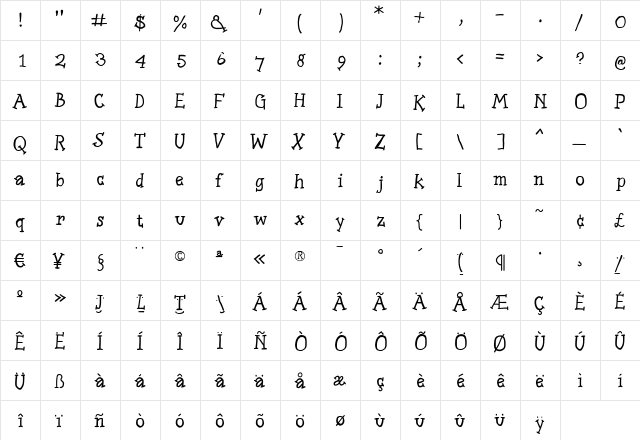
SlabSerifWritten Regular
Design Context for SlabSerifWritten Typeface
SlabSerifWritten features prominent, blocky serifs that give it a confident, grounded presence — equally at home in editorial settings and bold branding work.
Suited to magazines, political campaign materials, bold packaging, and any setting where authority matters.
Pro Tip: Use SlabSerifWritten for headlines and subheadings where its slab serifs can make an impression. It also holds up well in mid-size body copy thanks to its sturdy construction.